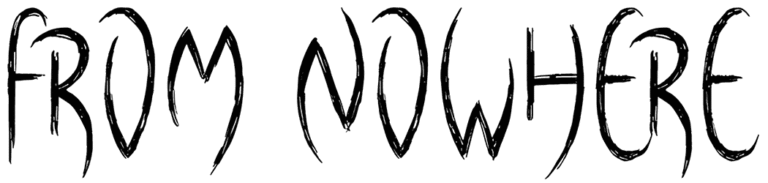
Happy Halloween Font
Happy Halloween is the solution to your scary projects to grow your content when you need a mixture of uppercase and lowercase letters. This Halloween font, written in blood, as an out-of-the-box printing solution, can add a different color to the writings and make them more personal.
So you don’t need to wait for Halloween because with this paint font, you can celebrate this day whenever you want. We suggest spicing up your costume designs, social media posts, and children’s posters with it.